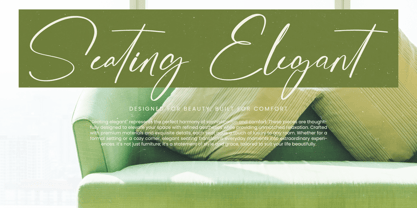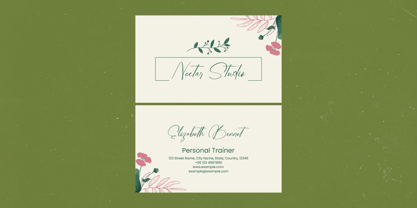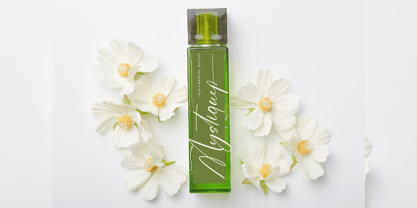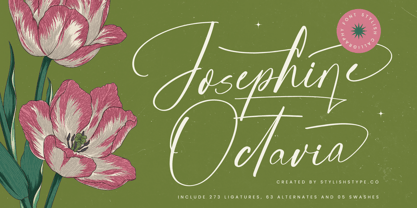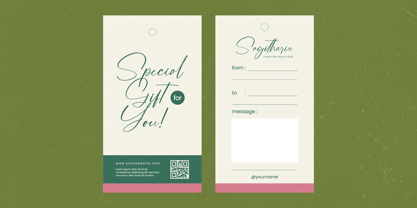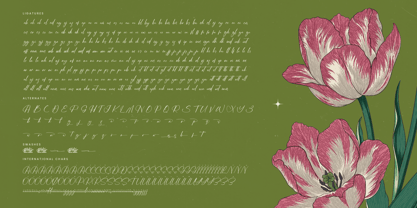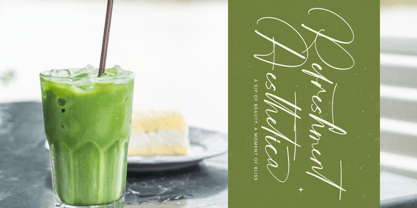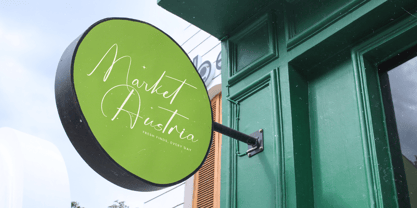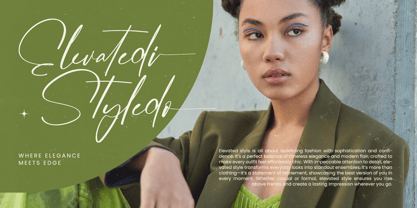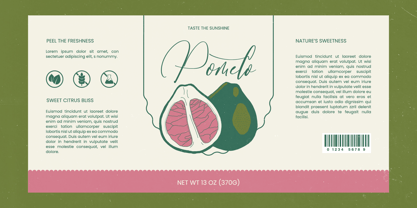
Josephine Octavia
La familia tipográfica Josephine Octavia fue diseñada por Heru Utama Putra y publicada por Stylishtype Studio. Josephine Octavia contiene 2 estilos y opciones de paquete familiar. Más información sobre esta familia
Josephine Octavia - Stylish Calligraphy Font , from Stylishtype, Suitable for any projects such as: logos, branding projects, homeware designs, product packaging, mugs, quotes, posters, shopping bags, t-shirts, book covers, name card, invitation cards, greeting cards, label, photography, watermark, special events, and all your other luxury and beautiful projects that need a Luxury Script taste.